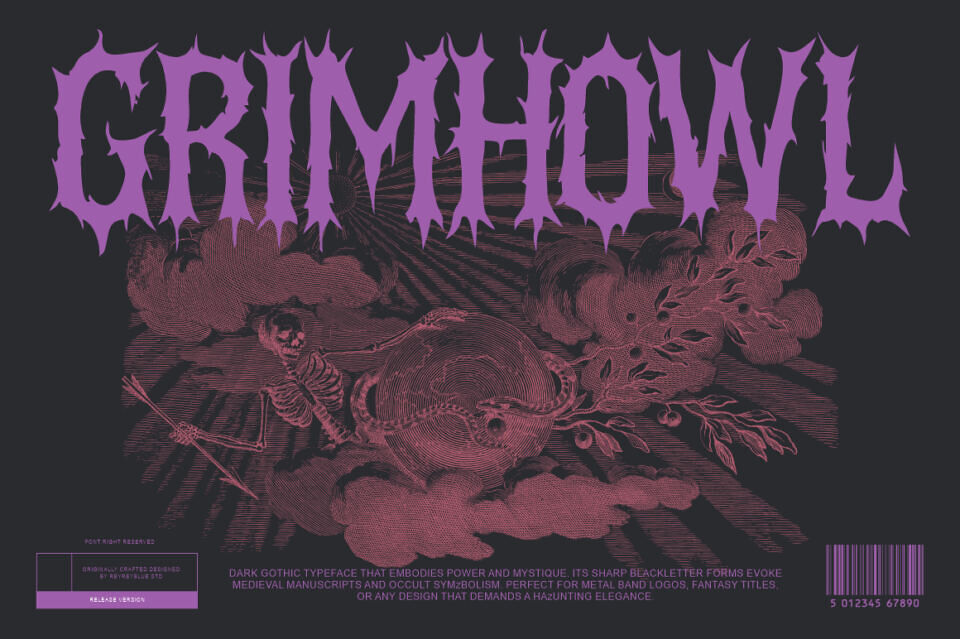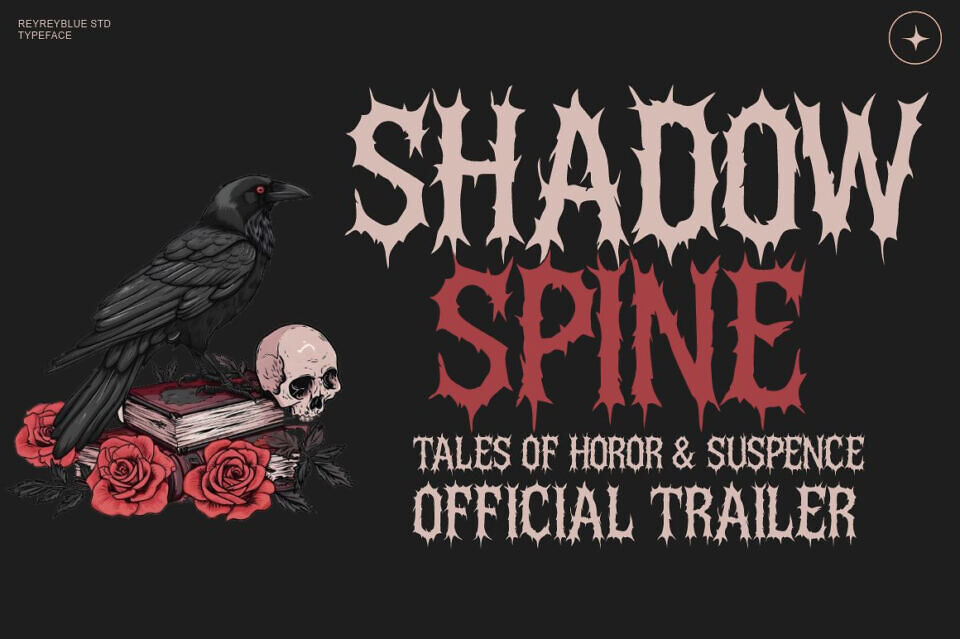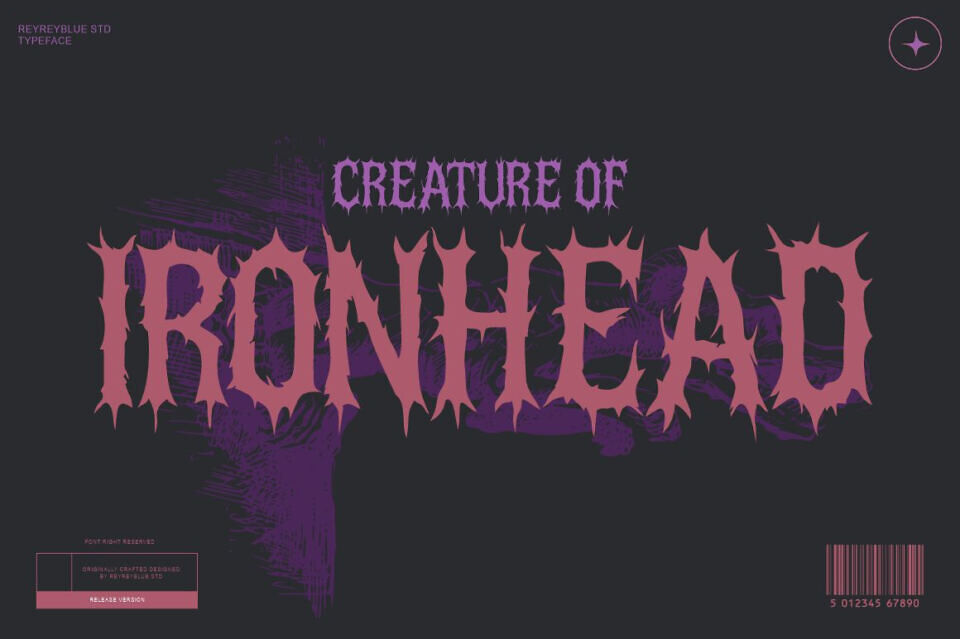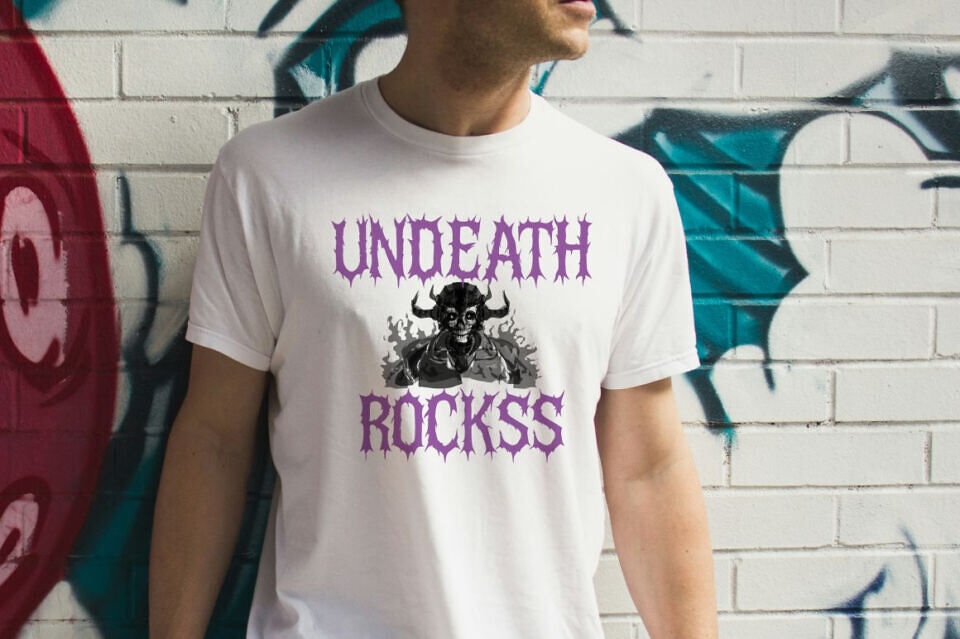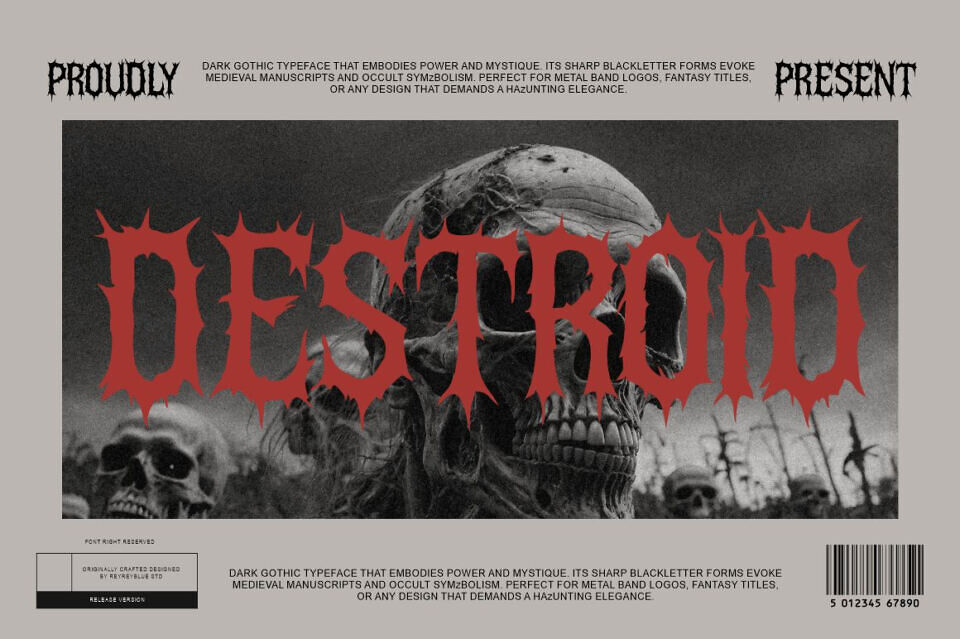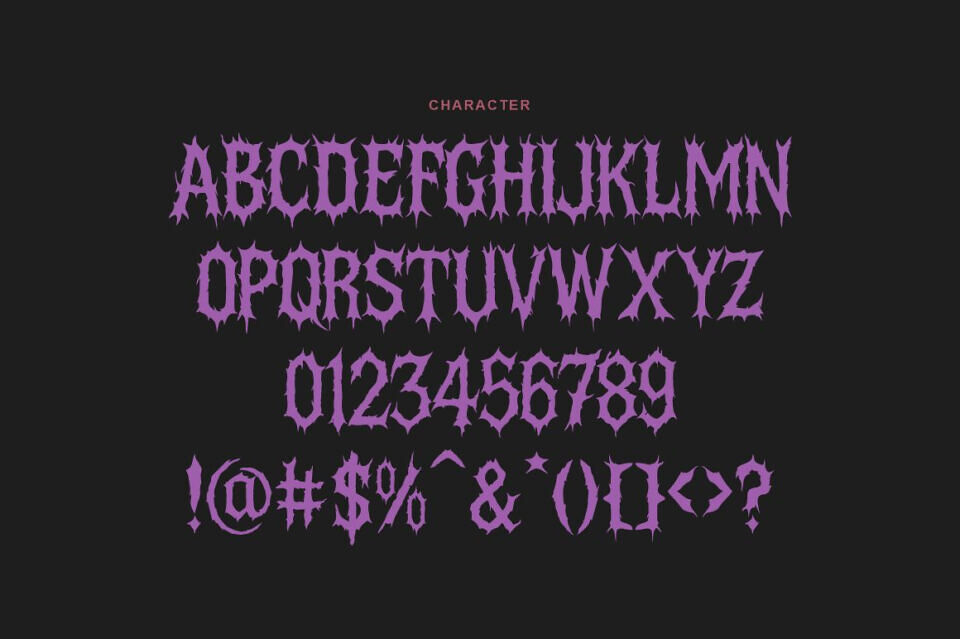
Grimhowl Font
Grimhowl is an ALL CAPS gothic, blackletter typeface crafted to deliver a powerful, dark, and dramatic visual impact.
Featuring sharp, spiked letterforms inspired by modern blackletter, dark fantasy art, and occult engravings, this typeface is designed to evoke mystery, intensity, and atmospheric depth. Every character brings a bold and haunting presence, making it ideal for extreme and expressive design projects.